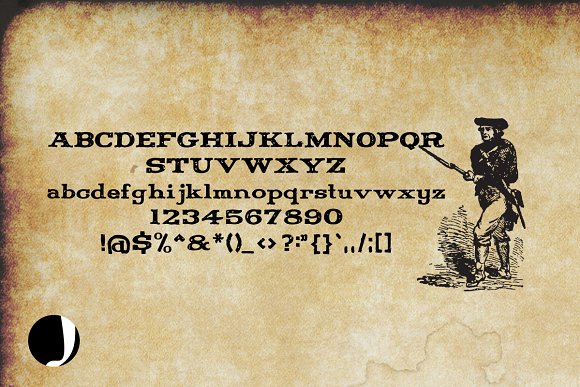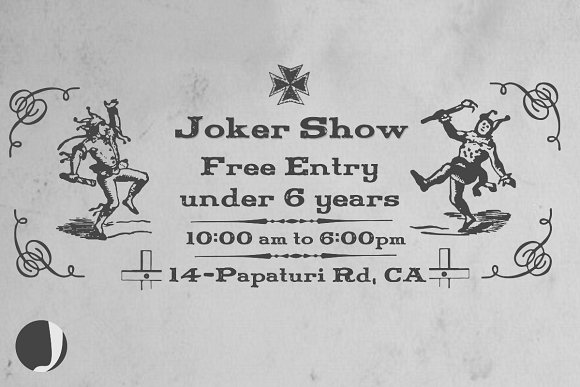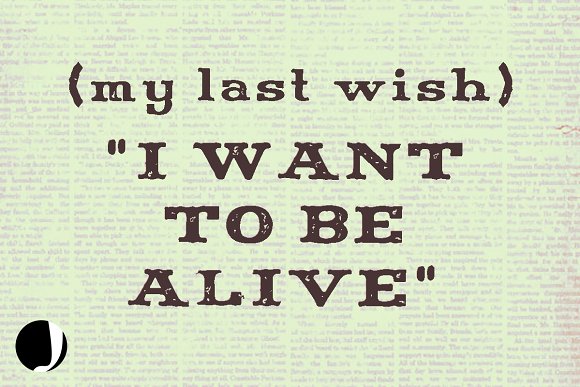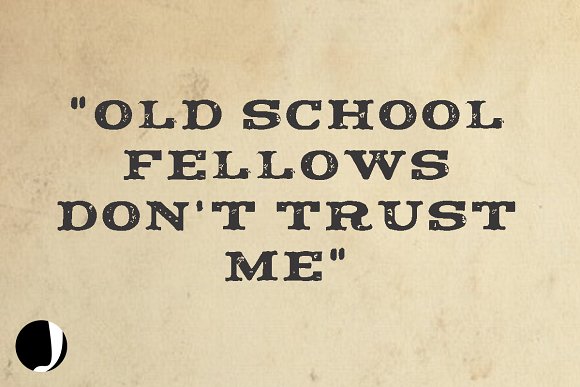
Introducing Handy Font: A Timeless Vintage Style for Your Designs
Are you a designer or crafter looking for a unique and distinctive font to add a touch of elegance to your projects? Look no further than Handy Font, a vintage style font inspired by old posters from the eighteenth century. With its classic charm and nostalgic feel, Handy Font is the perfect choice for anyone seeking to add a dash of sophistication to their designs.
The Inspiration Behind Handy Font
Handy Font is a carefully crafted font that draws inspiration from the ornate and intricate designs of old posters from the eighteenth century. During this time, posters were a popular form of advertising, and their elaborate typography and decorative flourishes were meant to capture the attention of potential customers. Handy Font recaptures the essence of this bygone era, with its elegant letterforms, delicate lines, and ornate details.
What Makes Handy Font Unique?
So, what sets Handy Font apart from other fonts? Here are a few key features that make it a standout choice for designers and crafters:
- Vintage charm: Handy Font has a distinctive vintage feel that is sure to add a touch of nostalgia to your designs.
- Elegant letterforms: The font features beautifully crafted letterforms with delicate lines, ornate details, and a classic charm.
- Unique flavor: Handy Font gives your designs a unique flavor that is sure to set them apart from the crowd.
- Highly versatile: Whether you’re designing a poster, a logo, or a craft project, Handy Font is highly versatile and can be used in a variety of contexts.
Uses for Handy Font
Handy Font is a highly versatile font that can be used in a wide range of design projects, including:
- Poster design: Handy Font is perfect for creating eye-catching posters with a vintage flair.
- Logo design: The font’s elegant letterforms and classic charm make it an excellent choice for logos that require a touch of sophistication.
- Crafting: Handy Font is a great choice for crafters who want to add a personal touch to their projects, such as handmade cards, scrapbooking, and journaling.
- Digital design: The font can also be used in digital design projects, such as social media graphics, blog posts, and website headers.
Tips for Using Handy Font
Here are a few tips for getting the most out of Handy Font:
- Use it sparingly: Handy Font is a bold and eye-catching font, so use it sparingly to avoid overwhelming your design.
- Pair it with other fonts: Handy Font pairs well with other fonts, such as sans-serif fonts, to create a striking contrast.
- Experiment with colors: The font looks great in a range of colors, from rich jewel tones to muted pastels.
| Font Name | Handy Font |
| Author | Jadugar Design Studio |
In conclusion, Handy Font is a unique and versatile font that is perfect for designers and crafters looking to add a touch of vintage charm to their projects. With its elegant letterforms, delicate lines, and ornate details, Handy Font is sure to give your designs a distinctive flavor that sets them apart from the crowd. So why not give it a try and see the difference it can make in your designs?